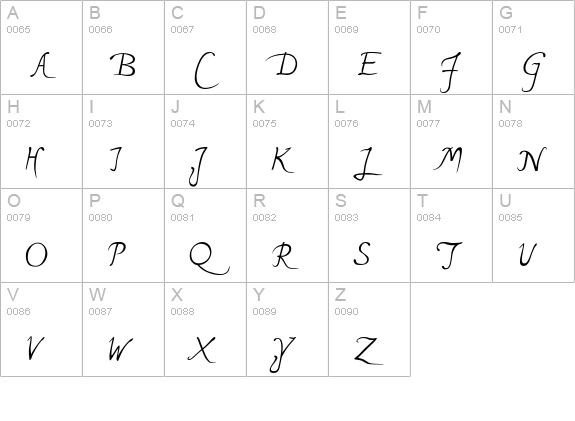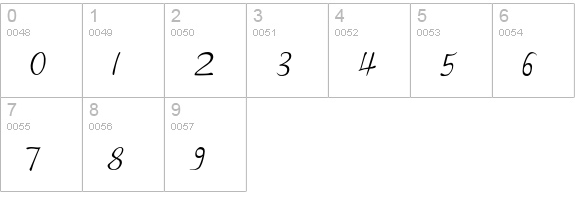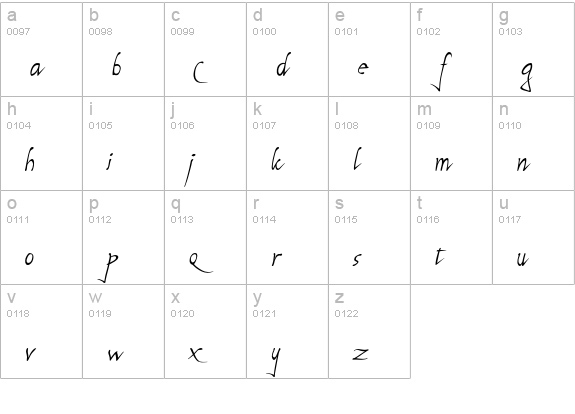
P22MichelangeloRegular Font Details
P22MichelangeloRegular font is a stunning typeface that pays homage to the legendary artist Michelangelo. This font embodies the elegance and timeless beauty that is characteristic of Michelangelo's masterpieces. With its graceful curves and intricate details, P22MichelangeloRegular captures the essence of Renaissance art. This font is perfect for adding a touch of sophistication to any project. Whether you are designing a wedding invitation, creating a logo, or crafting a poster, P22MichelangeloRegular will elevate your design to new heights. Its classic and refined aesthetics make it a versatile choice for both print and digital applications. What sets P22MichelangeloRegular apart is that it is freely available to download at FontsMarket.com. This means that you can enjoy the beauty and quality of this font without any cost. It is a rare opportunity to have access to such a high-quality typeface without having to break the bank. Download P22MichelangeloRegular today and let your creativity soar. With its timeless appeal and artistic flair, this font is sure to make a lasting impression. Whether you are a professional designer or a casual enthusiast, P22MichelangeloRegular is a must-have in your font collection. Don't miss out on this incredible free font - visit FontsMarket.com and start creating stunning designs now.